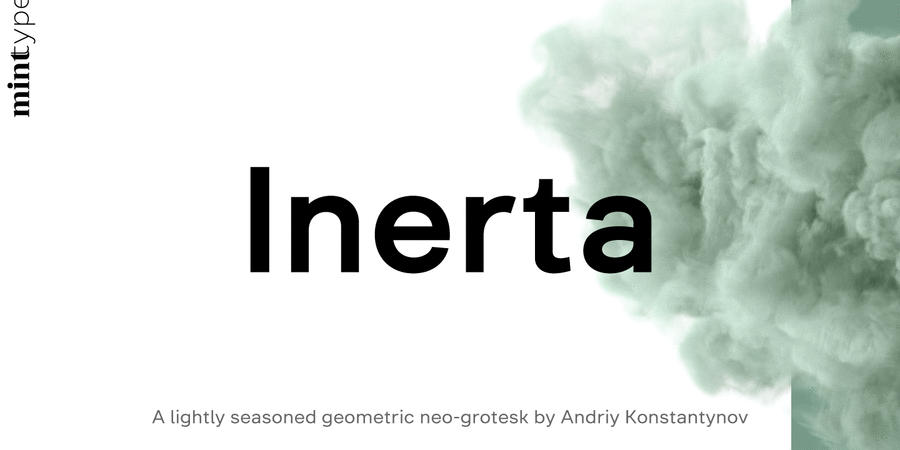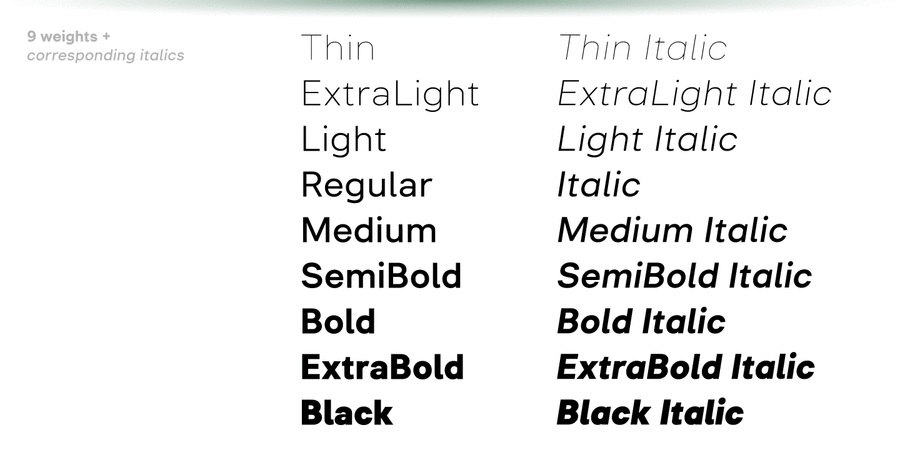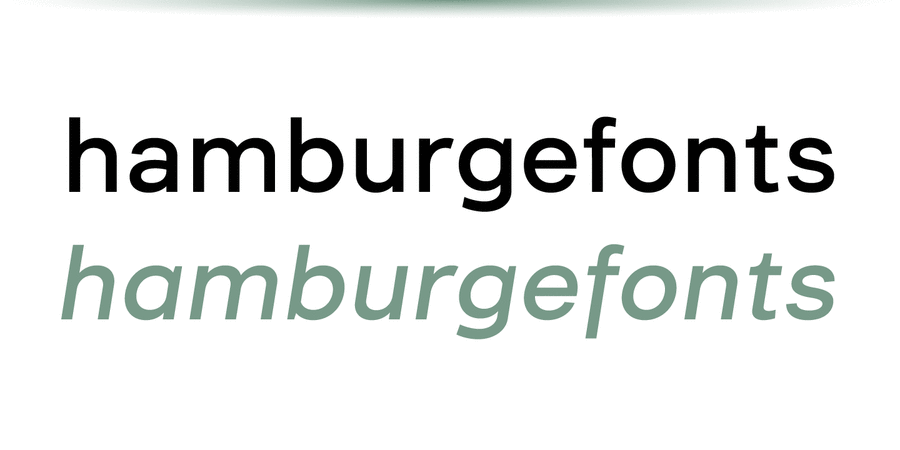
Inerta (18 fonts)
This is a neutral, but not flavourless cross between a geometric sans and a neo-grotesk. It is designed to work perfectly in UI/UX applications, and to remain readable in smallest font sizes. The typeface can be customised with several sets of alternate glyphs. The Cyrillic part contains alternates for Bulgarian Cyrillic and alternative Ukrainian Cyrillic. The typeface was designed by Andriy Konstantynov and released in Mint Type foundry in 2021.